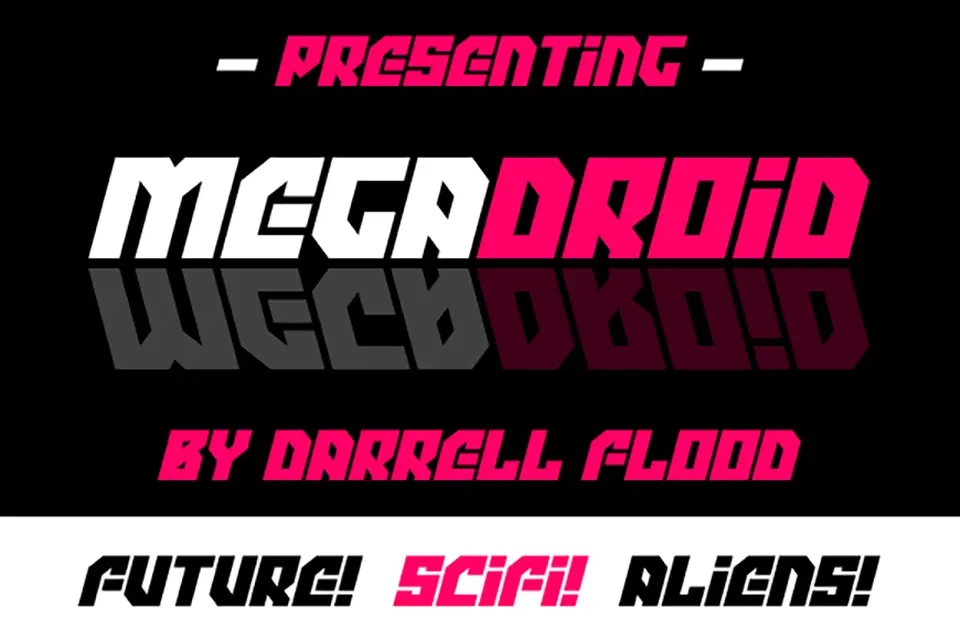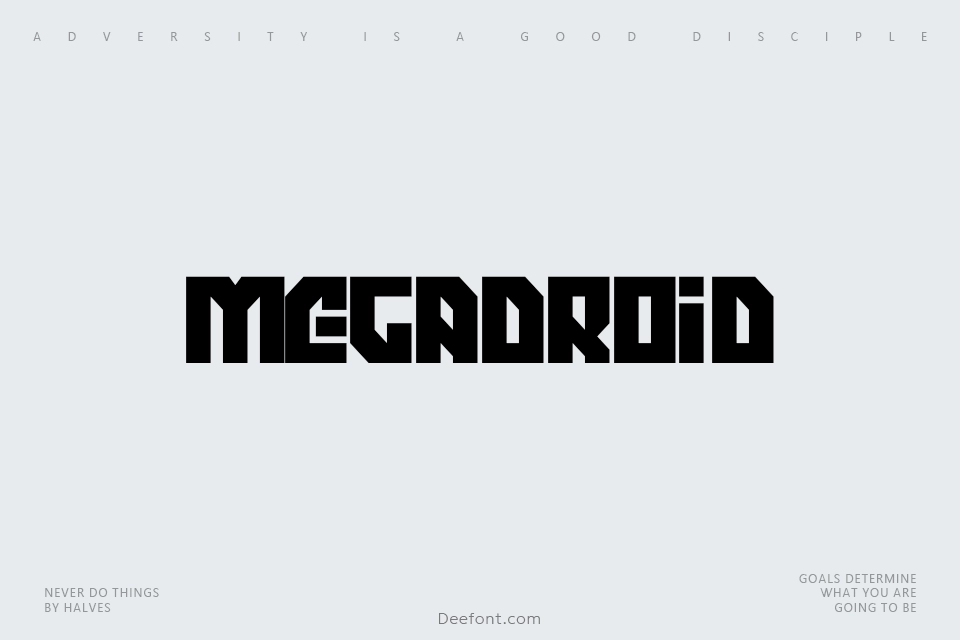
Megadroid Font
Megadroid is a bold, futuristic display font that commands attention with striking, angular letterforms and sharp edges. This cutting-edge typeface exudes technological prowess and modern innovation, making it ideal for branding, headlines, and sci-fi inspired designs. With its weighty presence and expansive character design, Megadroid delivers impactful visual statements perfect for packaging, posters, and dynamic digital applications that demand a strong, contemporary aesthetic.